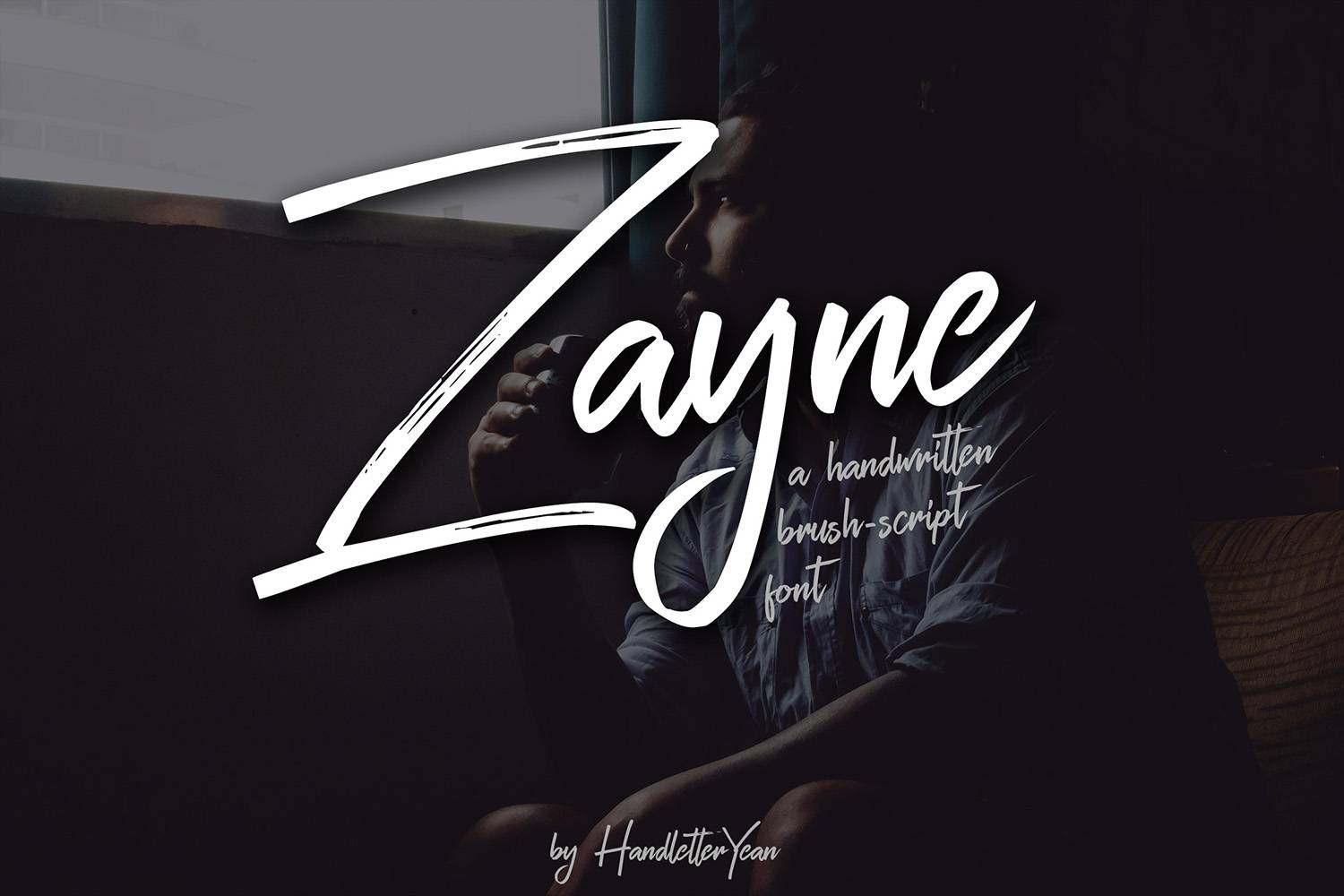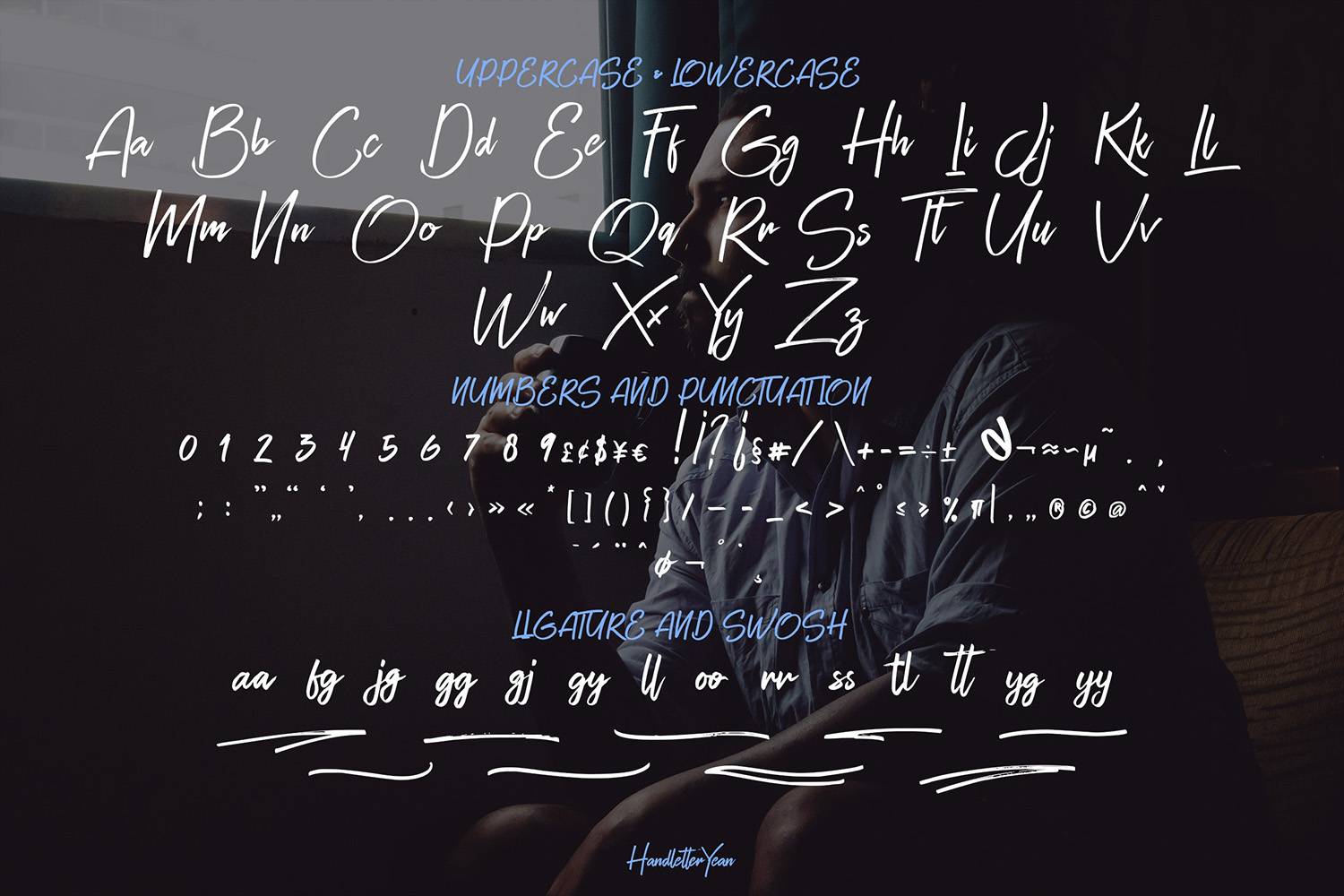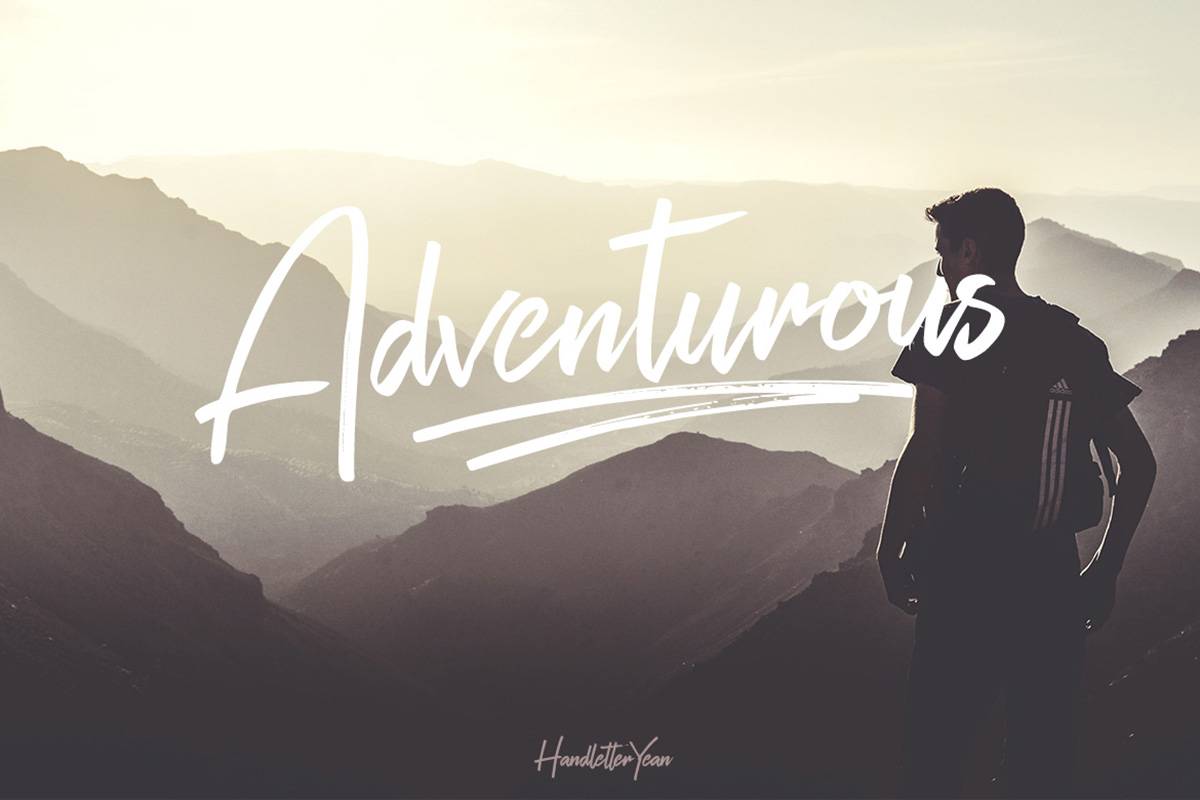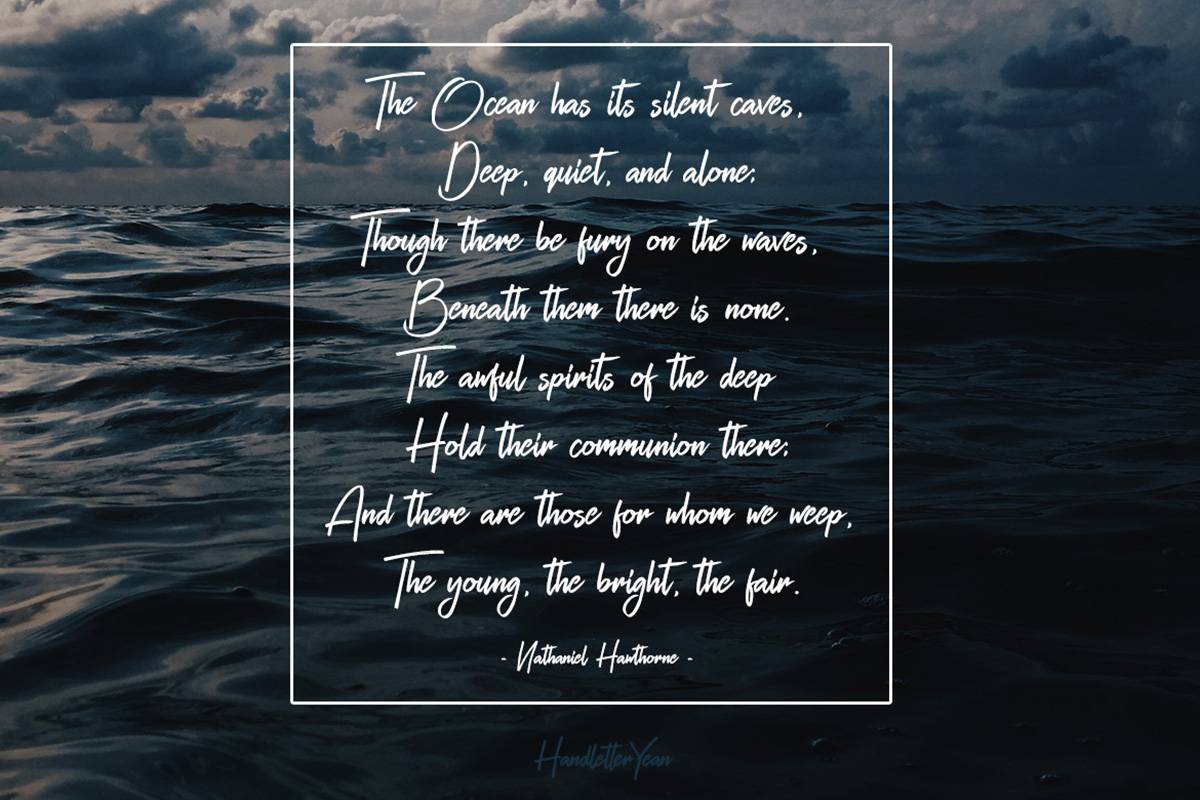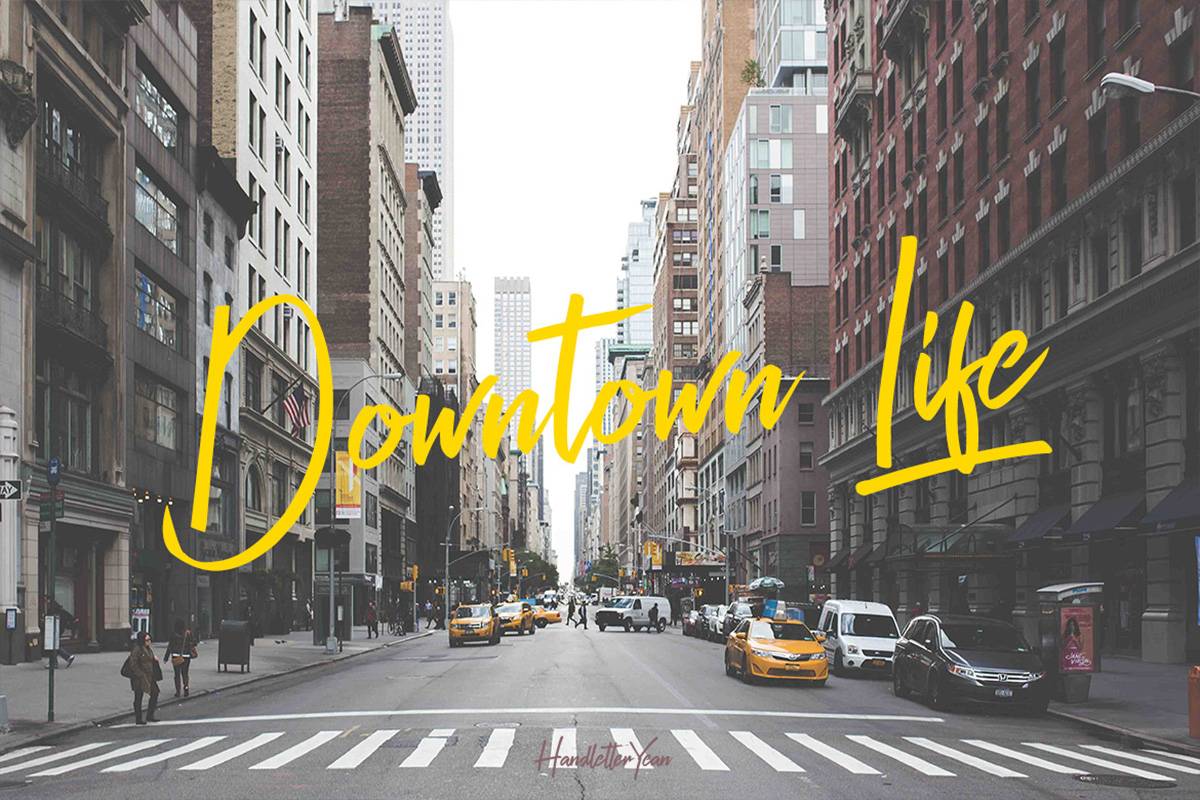
Zayne is a lively handwritten script font that features flowing, elegant letterforms with varying stroke thickness, giving it a dynamic and personal touch. Its casual yet refined style makes it perfect for branding, invitations, and creative projects that seek a friendly, stylish, and approachable vibe. This font shines in designs where a handwritten, modern aesthetic is desired to convey warmth and personality.
Zayne Font
About Zayne Font
| Designer | HandletterYean |